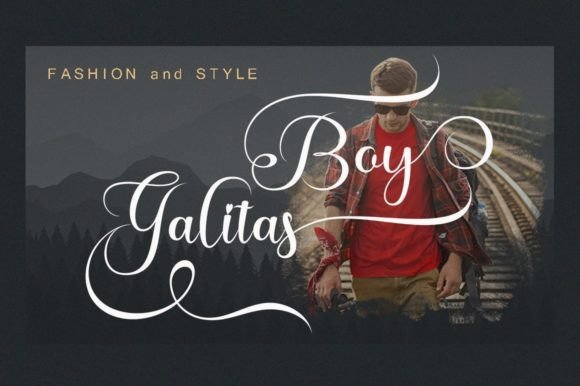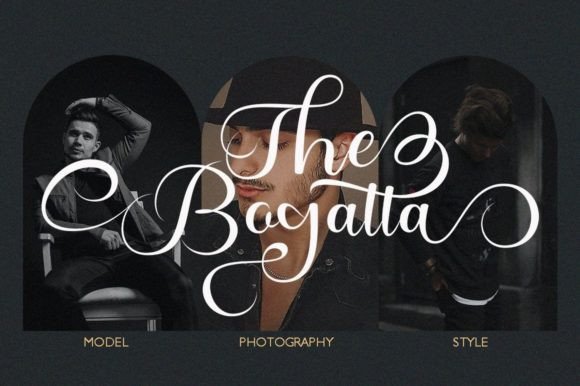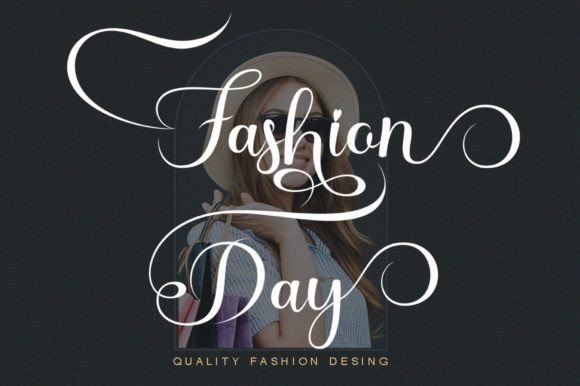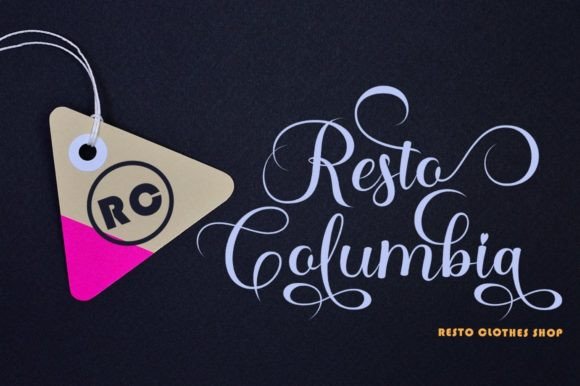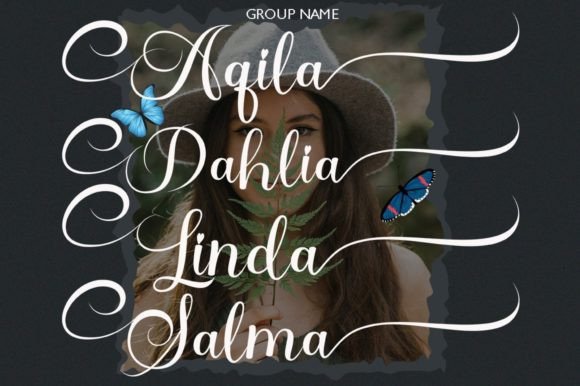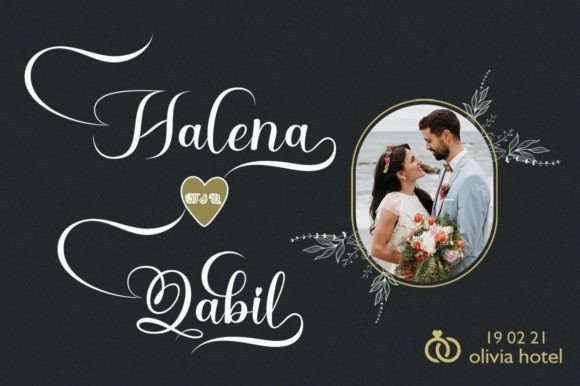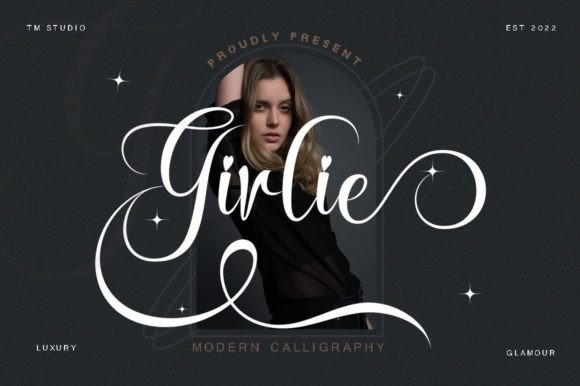
Introducing Girlie Font: Elevate Your Designs with Elegance and Sophistication
In the world of typography, a well-crafted font can make all the difference in transforming a design from ordinary to extraordinary. For designers and crafters seeking to add a touch of elegance and sophistication to their projects, look no further than the Girlie Font. This beautiful script font is inspired by timeless classic calligraphy, offering a contemporary feel and flawless form that is sure to elevate your designs to new heights.
A Perfect Balance of Style and Versatility
One of the standout features of the Girlie Font is its perfect balance of style and versatility. Not too thin and not too bold, this font strikes the ideal balance between elegance and readability. Its varied strokes and carefully crafted letterforms ensure that your text is not only visually appealing but also easy to read, making it suitable for a wide range of applications, from elegant branding and packaging to beautiful stationery and crafts.
Inspired by Timeless Classic Calligraphy
The Girlie Font draws inspiration from the art of classic calligraphy, where every stroke and swirl is a testament to the artistry and skill of the calligrapher. With its flowing lines and graceful curves, this font embodies the essence of traditional calligraphy while presenting it in a modern and fresh way. Whether you’re working on a project that requires a touch of sophistication or simply want to add some personality to your text, the Girlie Font is an excellent choice.
Another significant advantage of the Girlie Font is that it is PUA (Private Use Area) encoded. This means that you can easily access all the glyphs and swashes, allowing you to customize your text and make it truly unique. The PUA encoding ensures that you have complete flexibility and creative control over your typography, enabling you to experiment with different combinations of letters, swashes, and glyphs to create stunning text arrangements.
Whether you’re a professional designer or a crafty DIY enthusiast, the Girlie Font is an excellent addition to your typographic arsenal. Designers will appreciate the font’s versatility and elegance, making it suitable for a wide range of client projects. Crafters, on the other hand, will love the font’s ability to add a personal touch to their handmade creations, such as cards, invitations, and scrapbooking projects.
Endless Possibilities for Your Projects
With the Girlie Font, the possibilities are endless. Use it to:
• Create stunning branding and packaging designs that exude elegance and sophistication
• Design beautiful stationery, such as wedding invitations, greeting cards, and letterheads
• Add a touch of personality to your digital designs, including social media graphics and website headers
• Enhance your craft projects, such as scrapbooking, journaling, and handmade cards
In conclusion, the Girlie Font is a beautiful and versatile script font that is sure to become a favorite among designers and crafters. Its elegant and sophisticated design, inspired by timeless classic calligraphy, makes it perfect for a wide range of projects. With its PUA encoding and flawless form, this font offers endless possibilities for creative expression. So why wait? Discover the beauty of the Girlie Font and take your designs to new heights of elegance and sophistication.